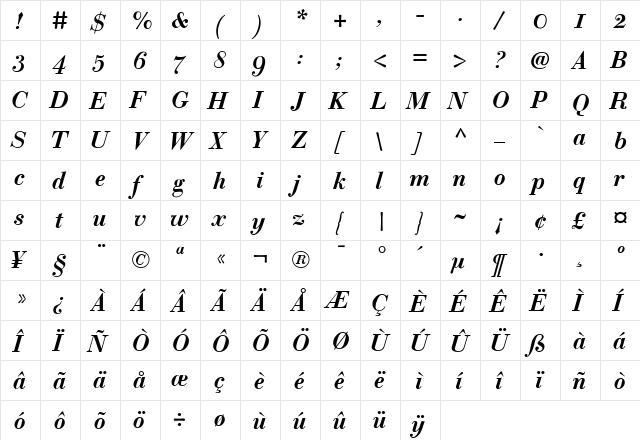
Bodoni Classic Text Bold Italic
Design Context for Bodoni Classic Text Typeface
Bodoni Classic Text has the warm character of retro typography — evoking diners, record sleeves, and the golden age of print advertising. Its italic angle brings a sense of urgency and motion to the letterforms. Its bold stroke weight gives it real presence on the page.
Perfect for vintage-inspired branding, retro packaging, nostalgia campaigns, and period-accurate editorial design.
Font Pairing: Combine Bodoni Classic Text with a simple slab or neutral sans — period-accurate companions reinforce the vintage feel without competing for attention.
Pro Tip: Use Bodoni Classic Text for headlines and pull quotes rather than body copy — its personality is best appreciated in short, focused bursts.